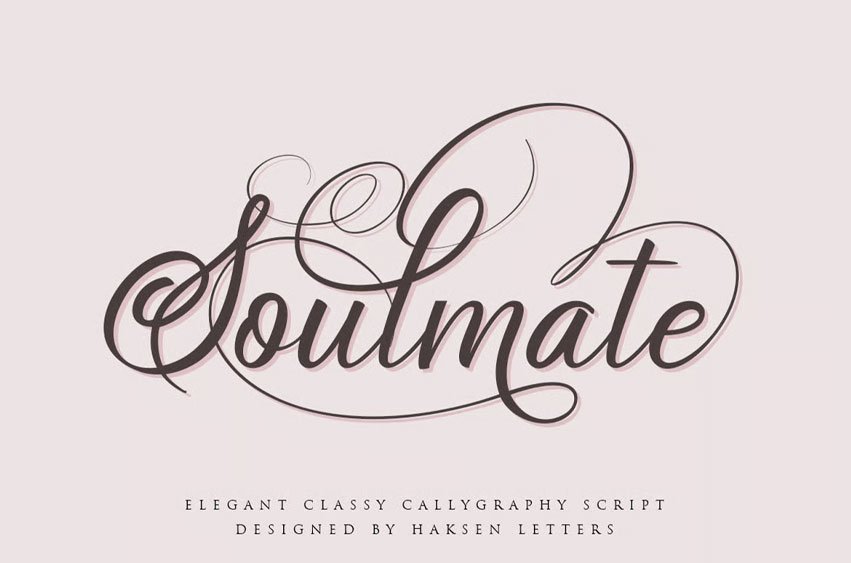
Soulmate Font Do you enjoy calligraphy scripts with a classy feel? Introducing Soulmate, an elegant and luxurious script that offers a variety of alternate characters.
Soulmate provides a sophisticated touch with many options for personalizing your letters. I recommend using Adobe software to design with this font; the Glyphs menu allows you to choose from numerous alternates to express your creativity.